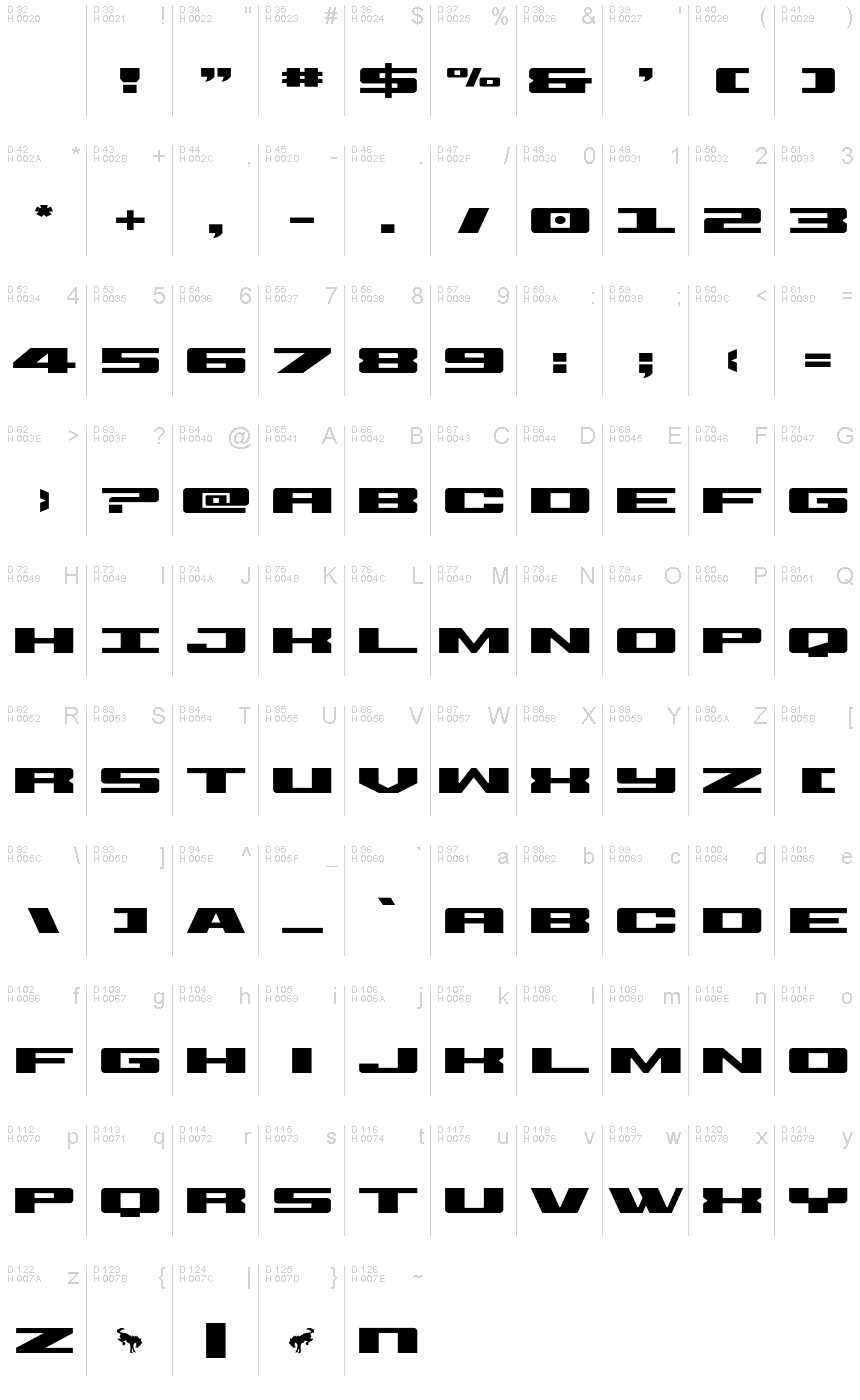
Buckin' Bronc Expanded
Buckin' Bronc Expanded leaps off the page with its audacious presence.
Designed by Iconian Fonts, this display font from the Buckin' Bronc family gallops into your creative projects with an extra-bold attitude and ultra-expanded width that commands attention. Its techno style, reminiscent of modernity and innovation, makes it a stellar choice for designers looking to inject energy and impact into their work.
Whether crafting striking headlines, eye-catching posters, or dynamic branding materials, Buckin' Bronc Expanded is tailored to set your designs apart in a digital landscape hungry for boldness and character.